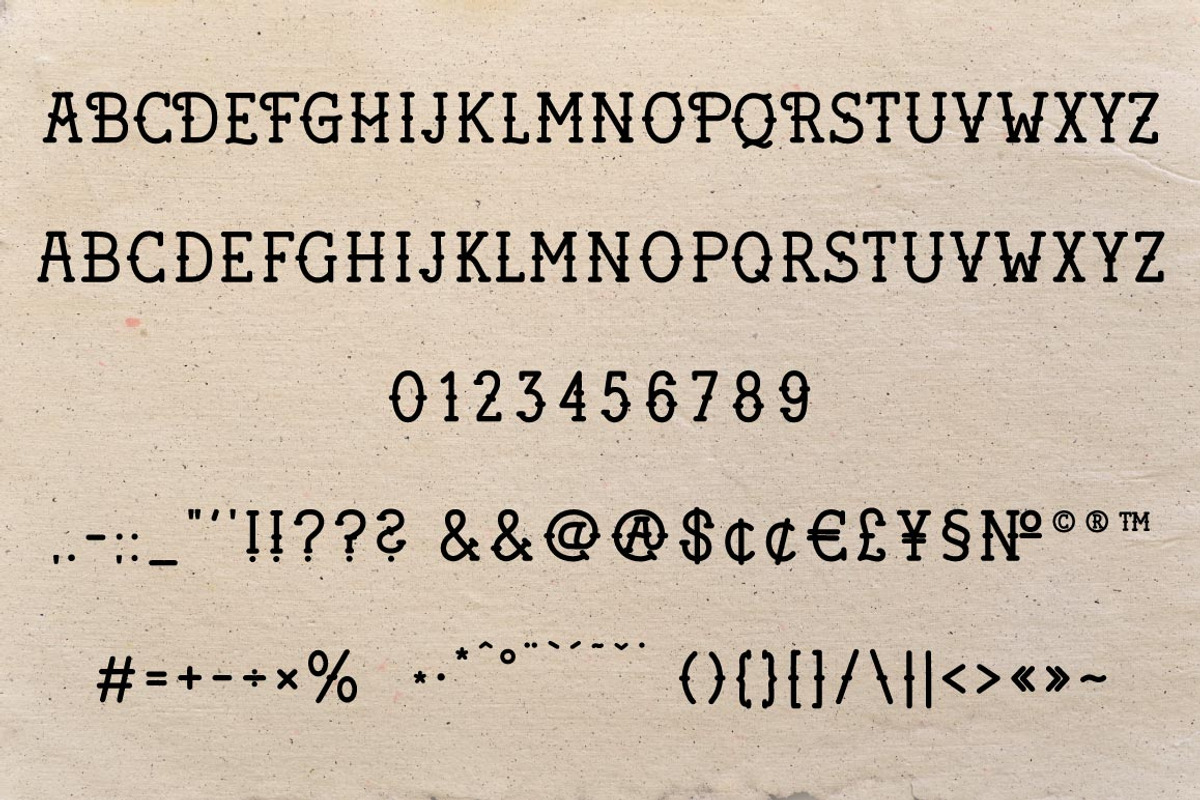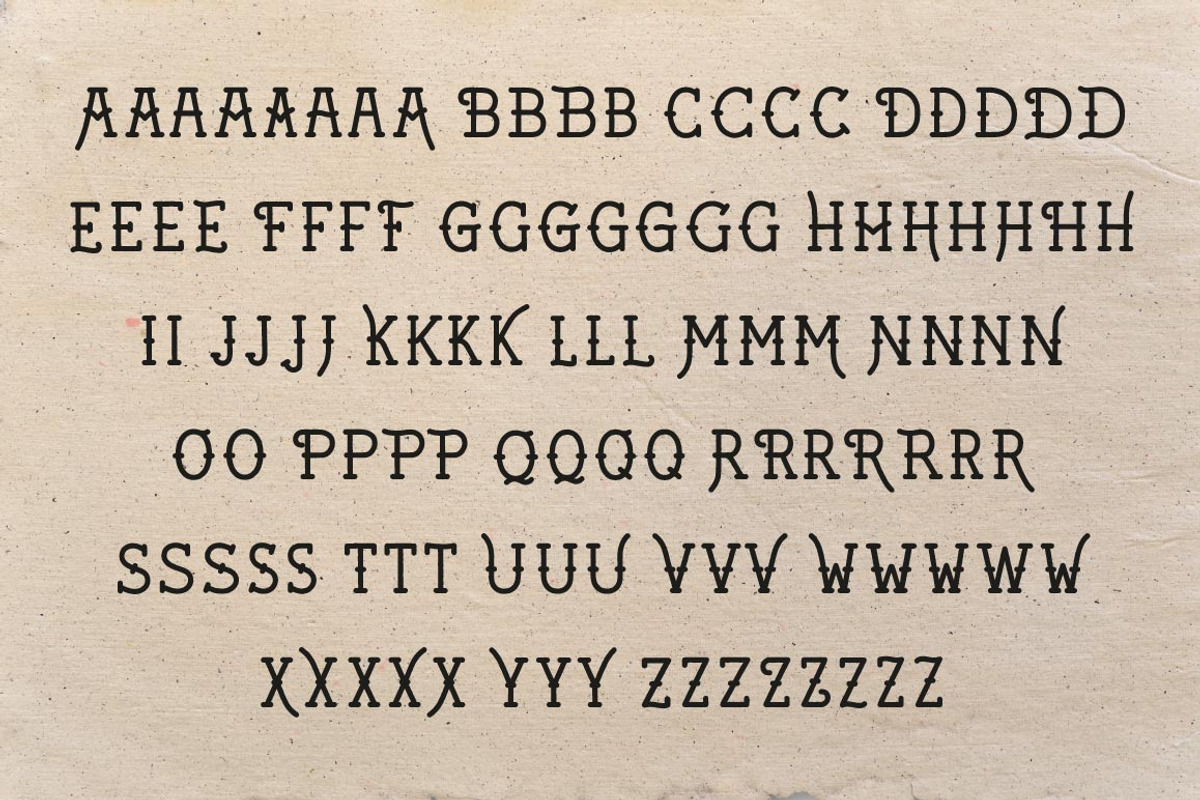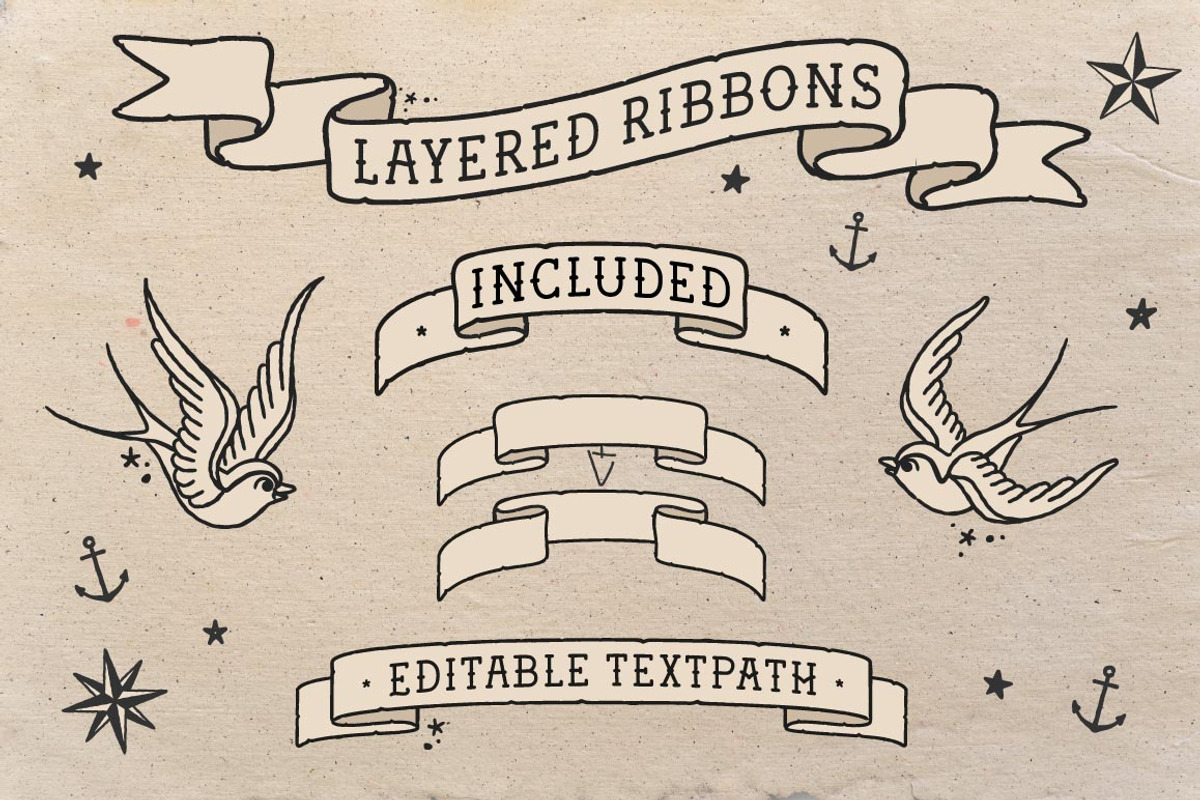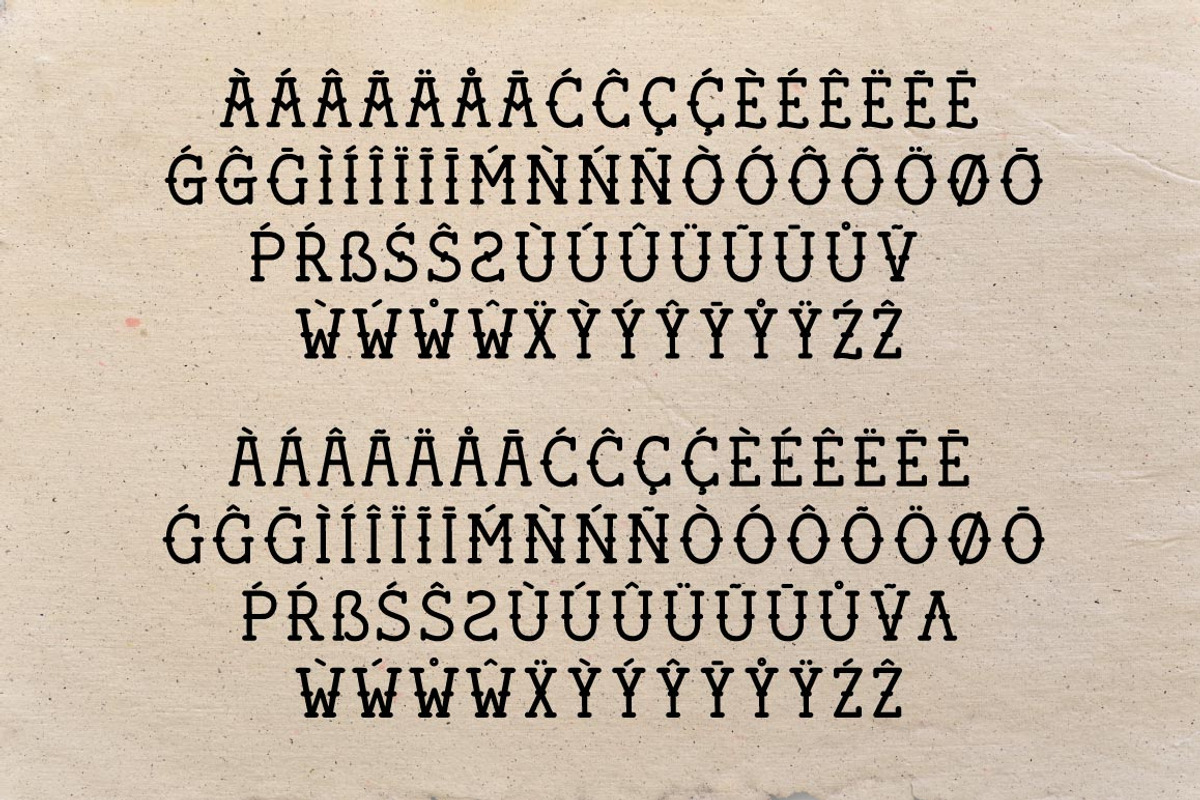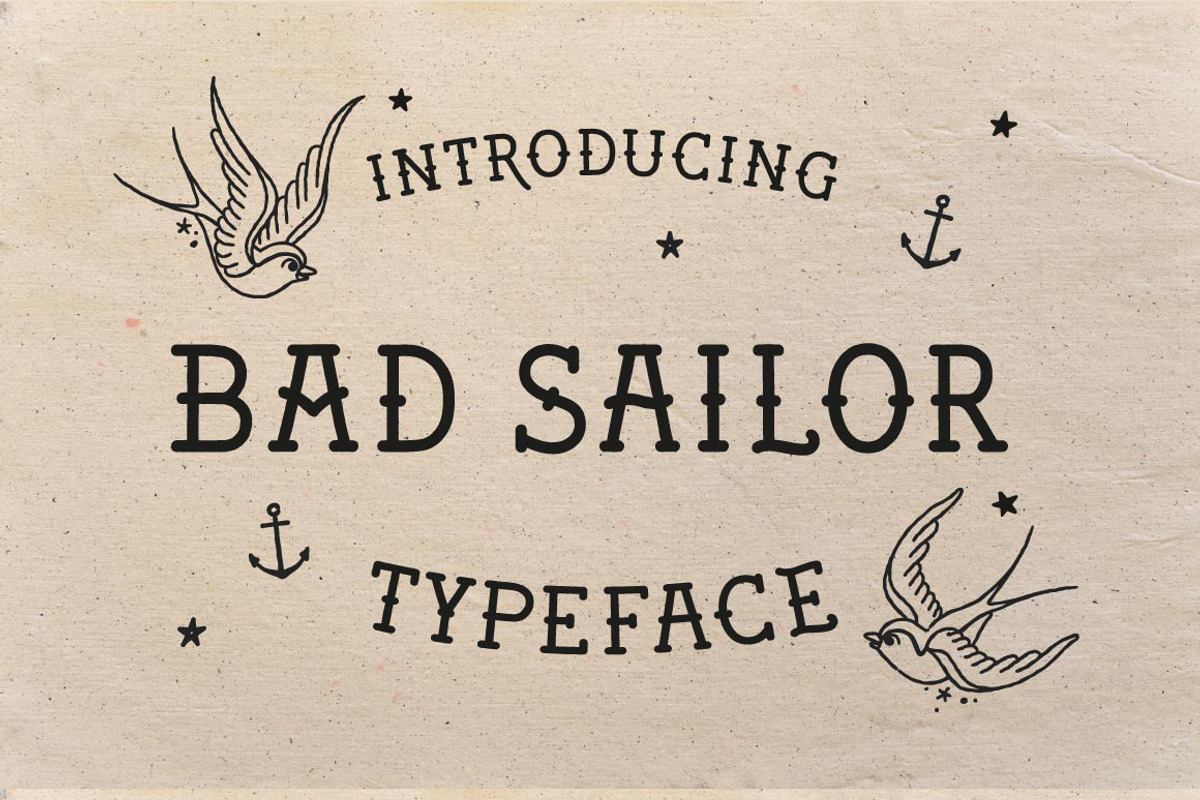
Bad Sailor Typeface
Hand Made Tattoo Style Font
Why Bad Sailor Typeface is worth a look
Bad Sailor Typeface by BAD TASTE fits naturally into Branding, posters, packaging, typography.